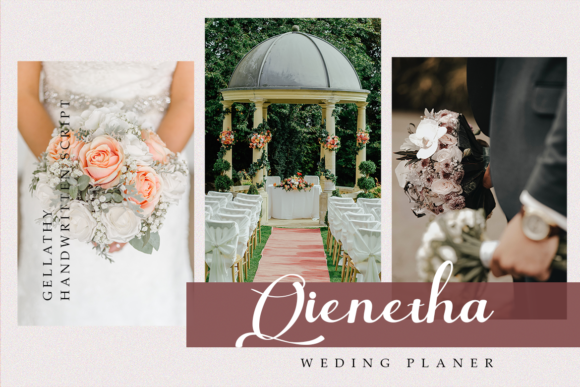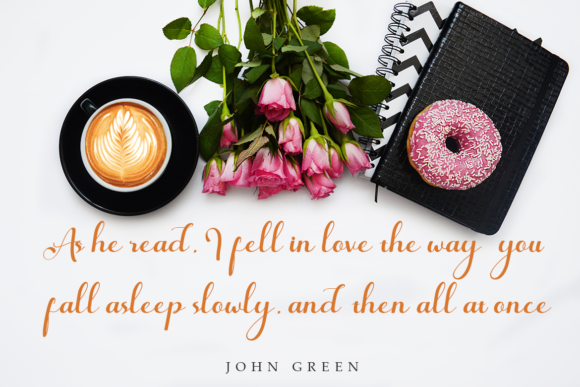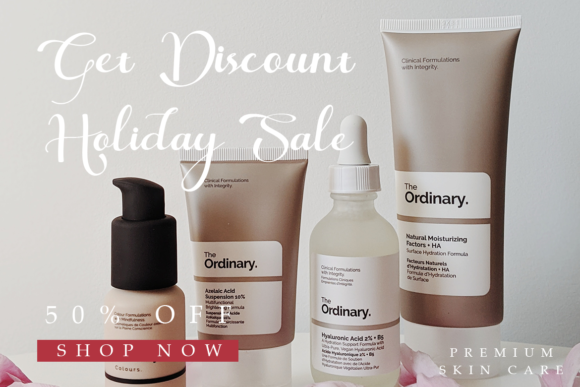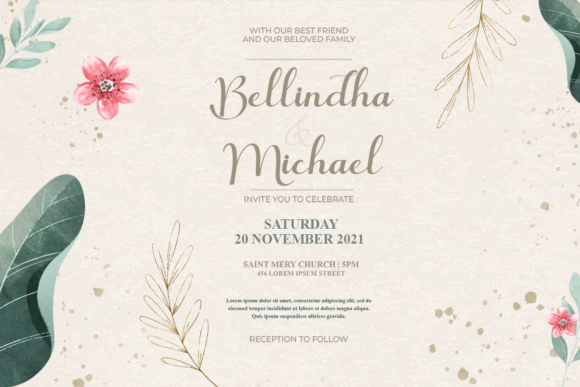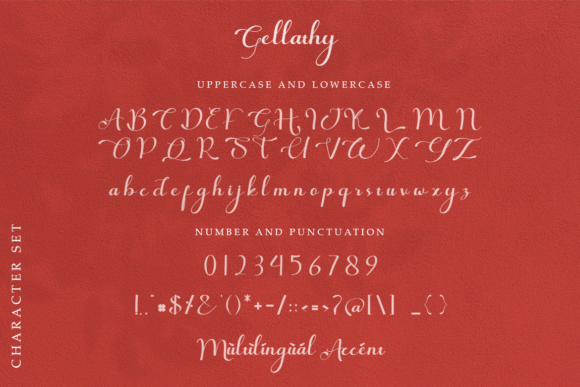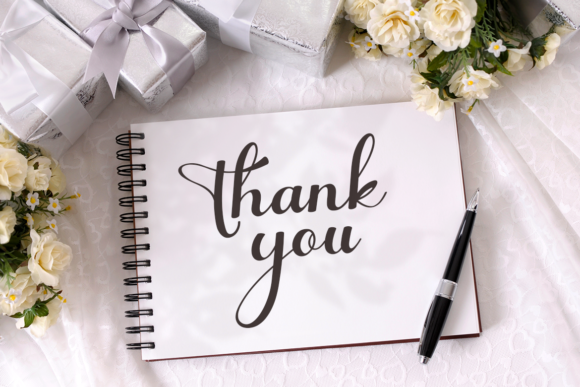
The Gellathy Font: A Luxe Addition to Your Design Arsenal
I’ll never forget the time I was working on a luxury branding project for a high-end jewelry client. I had spent hours perfecting the logo design, but something was missing. The font I had chosen just wasn’t delivering the level of sophistication and elegance I needed. That’s when I stumbled upon the Gellathy font, and it completely transformed my design. In this article, I’ll share my experience with this beautiful font, its features, and how to make the most of it in your design projects.
- ✨ Unique feel: Gellathy has a distinct, handwritten quality that sets it apart from other fonts.
- ✅ Luxury vibe: This font exudes elegance and sophistication, making it perfect for high-end designs.
- 💫 Versatility: Gellathy works beautifully in a variety of design contexts, from branding and packaging to digital and print materials.
- 🤔 Limited use in body text: While Gellathy is stunning in headlines and titles, it may not be the best choice for longer blocks of text.
- ⚠️ Some kerning issues: As with any font, you may need to adjust kerning to get the best results, especially when using Gellathy in larger sizes.
The Story Behind Gellathy
Gellathy was designed with the intention of creating a font that exudes luxury and elegance. Its unique feel and stunning impact make it perfect for designers looking to add a touch of sophistication to their work. Whether you’re working on a branding project, packaging design, or digital materials, Gellathy is sure to impress.
| What makes Gellathy unique? | Gellathy’s unique feel and stunning impact set it apart from other fonts. Its elegant, handwritten quality makes it perfect for luxury designs. |
| Is Gellathy suitable for body text? | While Gellathy is stunning in headlines and titles, it may not be the best choice for longer blocks of text. Consider using a clearer font for body text. |